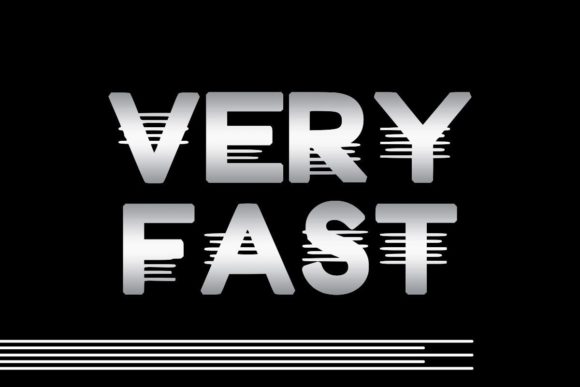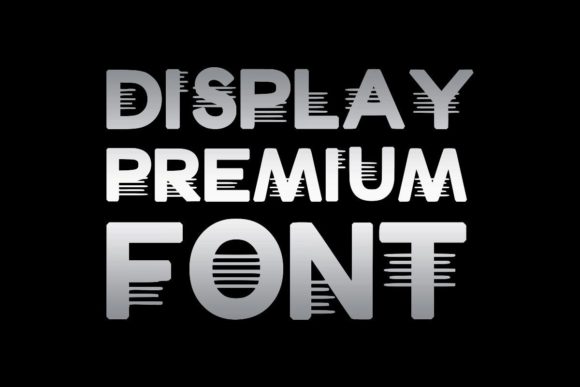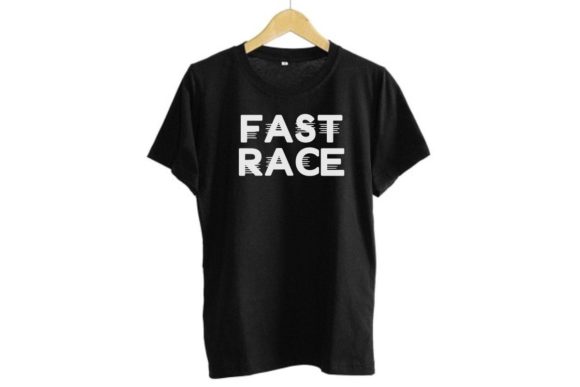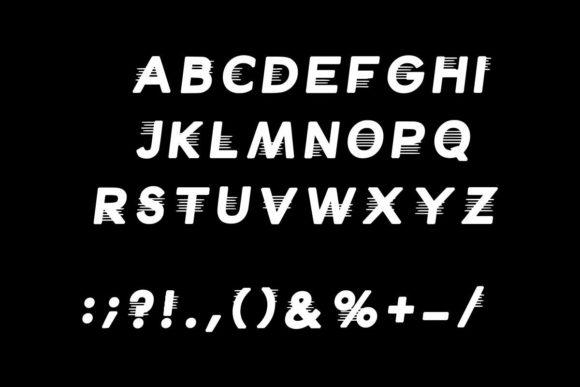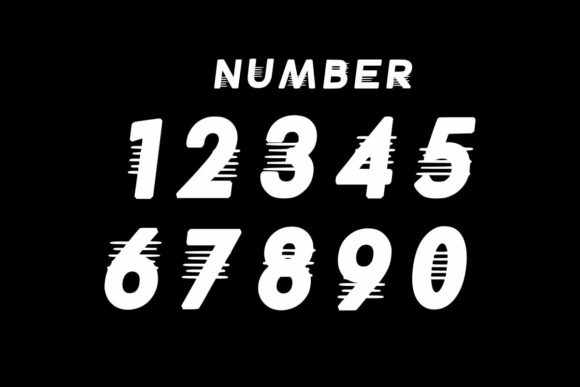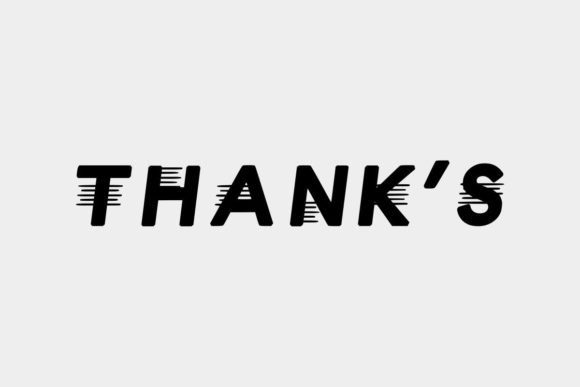
The Ultimate Guide to Fastron Font: Unleashing the Power of Bold and Sporty Typography
I’ll never forget the time I was working on a project for a sports brand, and I was struggling to find the perfect font to convey their energetic and dynamic vibe. The client wanted a bold, attention-grabbing typography that would make their brand stand out. After hours of searching, I stumbled upon Fastron Font, and it was love at first sight! 💡 In this article, I’ll share my experience with Fastron, its features, and how to make the most of it in your designs.
Fastron Font: A Bold and Assertive Display Font
Fastron is a bold and assertive display font designed to add a sporty, athletic vibe to your designs. Its strong lines and dynamic curves make it perfect for various design ideas, from sports branding to fitness posters, and even fashion editorials. Your options are endless! 🌟
The Good: ✨
- 💥 Extremely bold and attention-grabbing
- 🏋️♀️ Perfect for sports, fitness, and athletic designs
- 📸 Works great on both digital and print materials
- 👍 Highly legible, even at smaller sizes
The Not-So-Good: ⚠️
- 🤔 May not be suitable for body text or long paragraphs
- ⚠️ Limited use of OpenType features and glyphs
While Fastron excels in bold, eye-catching typography, it may not be the best choice for body text or long paragraphs. Additionally, its limited use of OpenType features and glyphs might restrict some creative possibilities.
The Story Behind Fastron Font
Fastron was designed by a team of typographers who aimed to create a bold, sporty font that would capture the energy and dynamism of athletic culture. Inspired by the world of sports, they crafted a font that would convey confidence, strength, and movement.
Q: What is Fastron Font best used for?
A: Fastron Font is ideal for designs that require a bold, sporty vibe, such as sports branding, fitness posters, and fashion editorials.
Q: Can I use Fastron Font for body text?
A: While Fastron is highly legible, it’s not recommended for body text or long paragraphs. Its bold personality is better suited for headlines and titles.
Q: Does Fastron support OpenType features?
A: Yes, Fastron supports OpenType features, including stylistic alternates and glyphs. You can access these features in compatible design applications.